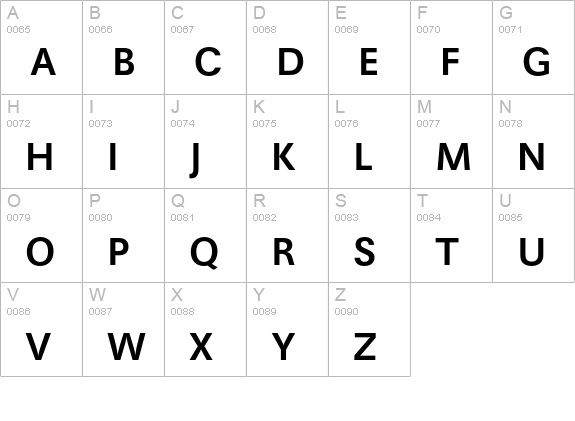
MaximaEF-Medium is a balanced, medium-weight variant in the MaximaEF typeface family \xE2\x80\x94 well suited to sub-headlines, navigation, and balanced editorial work.
MaximaEF-Medium font is a versatile and modern typeface that balances elegance with readability. Its medium weight strikes the perfect balance for a wide range of design projects, making it a go-to choice for both headers and body text. The clean lines and subtle curves of MaximaEF-Medium exude a sense of professionalism and sophistication. What sets MaximaEF-Medium font apart is that it is freely available for download at FontsMarket.com. This means that you can enhance your designs with this high-quality typeface without any cost barriers. Whether you're working on a website, a poster, a logo, or any other creative project, MaximaEF-Medium font is a reliable and stylish option that will elevate your design to the next level. Unlock your creativity and download MaximaEF-Medium font today for a seamless and polished look.